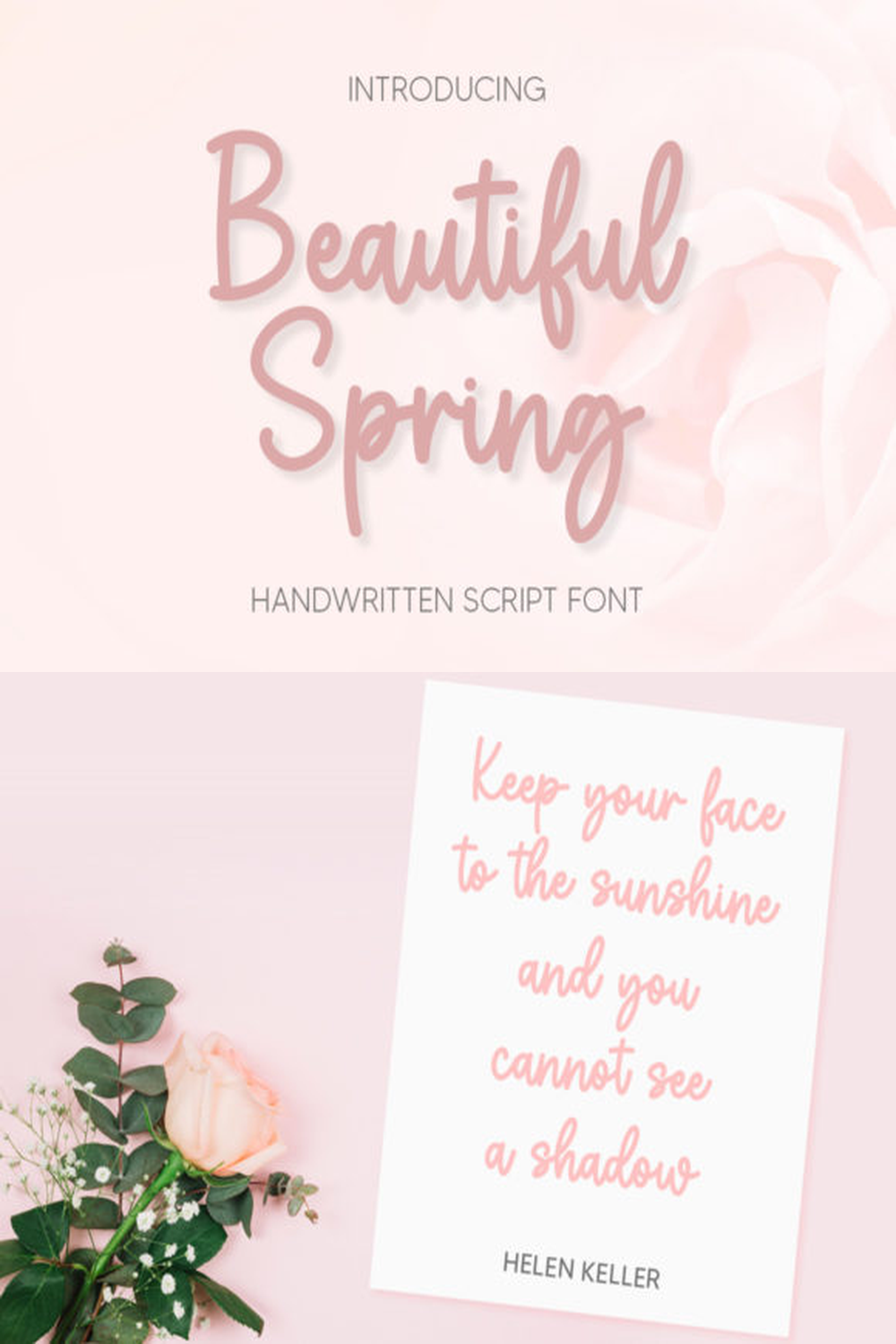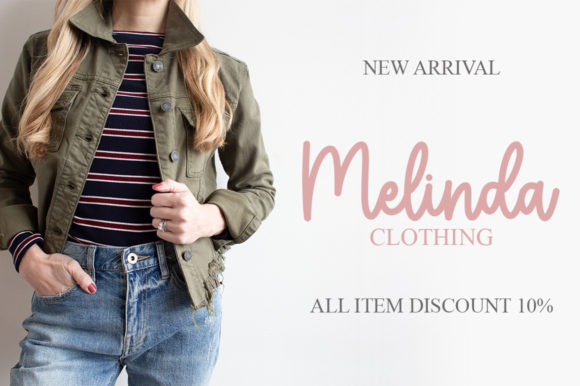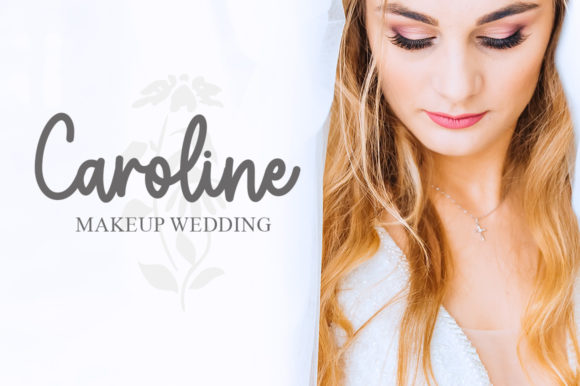
Beautiful Spring Font
About the Beautiful Spring Font
The Beautiful Spring Font offers a perfect balance of form and function for your design needs. Beautiful Spring is a dainty and flowing handwritten font.
Sweet and joyful, this font will be ideal for writing wedding invitations, cards or any other design that may need a romantic, personalized touch!